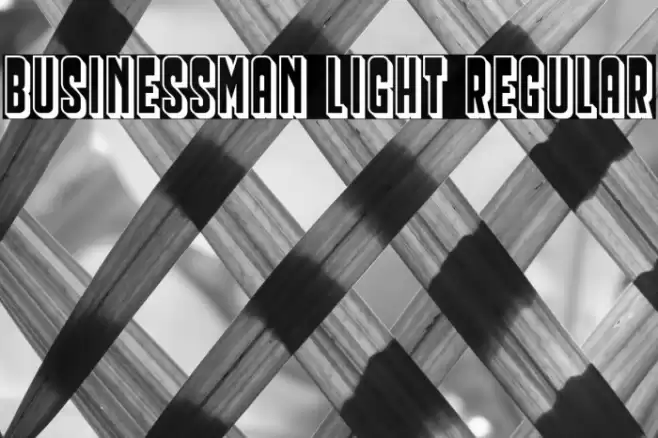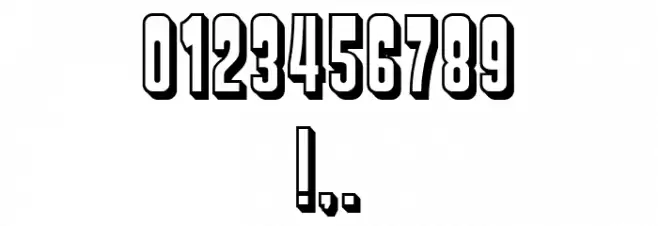
Businessman Light Regular Font
Businessman Light Regular Description
This font features a bold and impactful design with a three-dimensional shadow effect that gives it a striking appearance. The uppercase letters are uniformly structured with a geometric style, while the numbers and special characters maintain the same boldness and shadow effect. The font's design is clean and modern, making it suitable for attention-grabbing headlines and titles. The spacing between characters is normal, allowing for clear readability despite the bold design. The overall style is decorative, with a strong emphasis on visual impact.
A bold, geometric font with a 3D shadow effect, ideal for striking headlines from Uncategorized fonts.
- Proposed Projects: This font is perfect for poster designs, advertising campaigns, logo creation, and any project that requires a bold and eye-catching typeface.